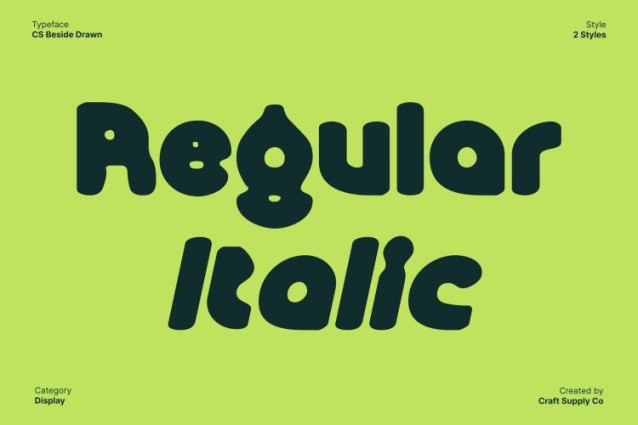
CS Beside Drawn Font
CS Beside Drawn Font This is a bold display font designed to command attention through strong, impactful letterforms. Its solid structure delivers instant visual power, while the drawn texture introduces an expressive, handcrafted edge. This combination creates typography that feels raw, energetic, and unmistakably bold—perfect for designs that refuse to blend in.
Futuristic and Experimental Aesthetic
Built with an experimental and futuristic mindset, this font features unconventional shapes and daring construction. The sharp geometry and unexpected forms give it a cutting-edge vibe, making it ideal for innovative branding, creative campaigns, and forward-thinking visual concepts that aim to feel bold and disruptive.
High-Impact Letterforms with Character
With its heavy weight and confident proportions, this font maintains excellent clarity, especially in large-scale applications. The drawn effect adds subtle imperfections that bring movement and personality, preventing the font from feeling too rigid while keeping it visually striking and professional.
Versatile for Bold Creative Projects
From posters, headlines, and logos to experimental editorials and promotional graphics, this font adapts seamlessly across media. It’s a powerful choice for designers who want to communicate strength, modernity, and creativity through typography that is expressive, futuristic, and impossible to ignore.